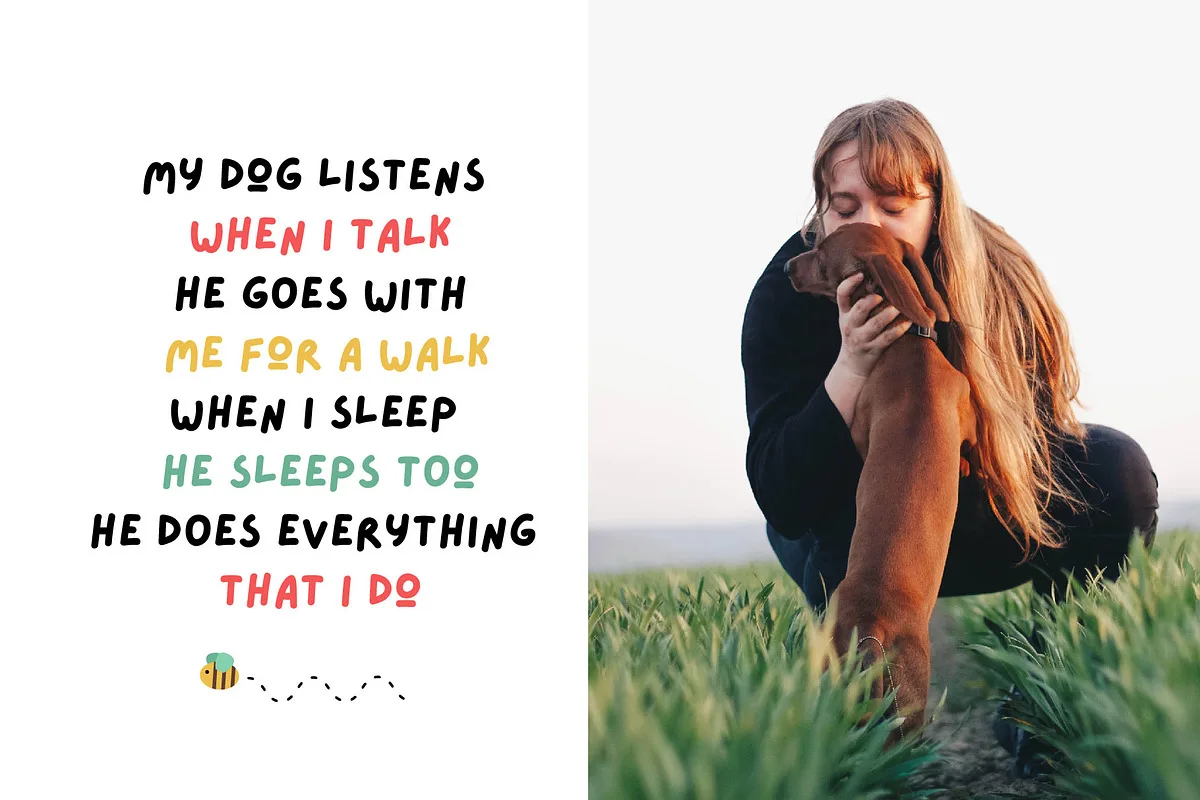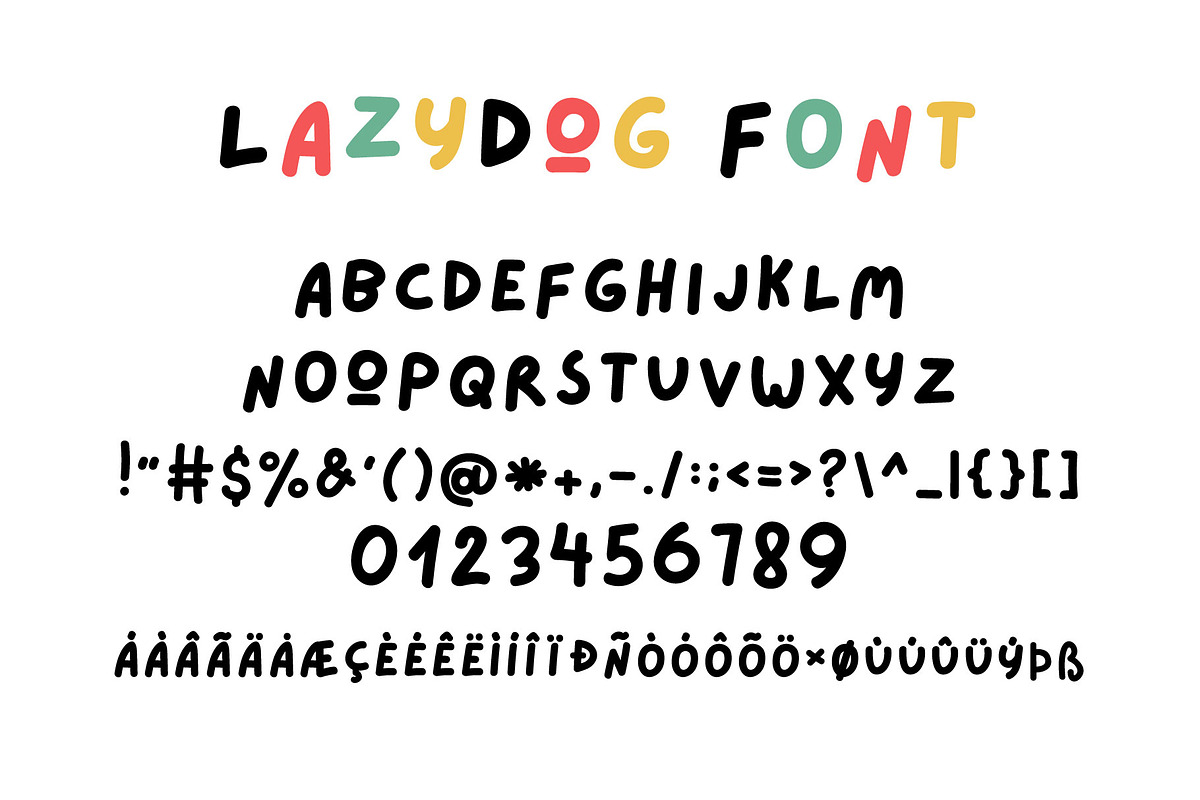
Lazydog is a new handwritten kid’s funny font, designed by JuliyArt! It is perfect for comic, books, greeting cards, toys, posters, baby clothing, picture books or anything that requires a fun and happiness look! The font also includes the Cyrillic alphabet. Create!
The preview below shows the basic characters included in this typeface. It helps designers see how Lazydog Font appears with uppercase letters, lowercase letters, and numbers.